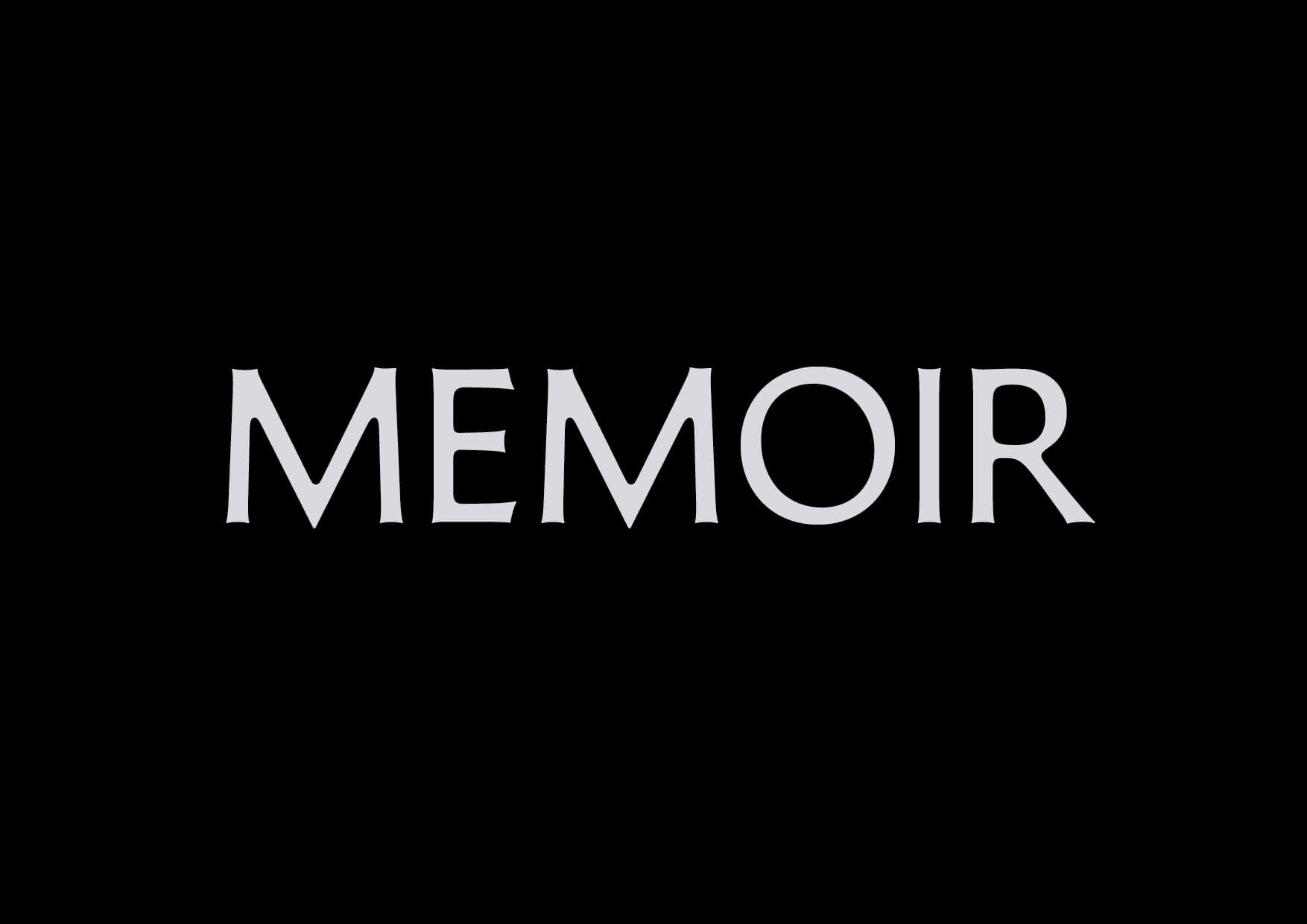
Memoir
Studio Daniel Gremme · 2026
A free typeface for the nostalgic beholder. Roman proportions, slight stroke contrast and melting joints render it warm and gentle, opening a gate into the past - sometimes blurry, sometimes sharp. Enjoy a short, sweet dive into the past - but don’t forget to come back, honey.